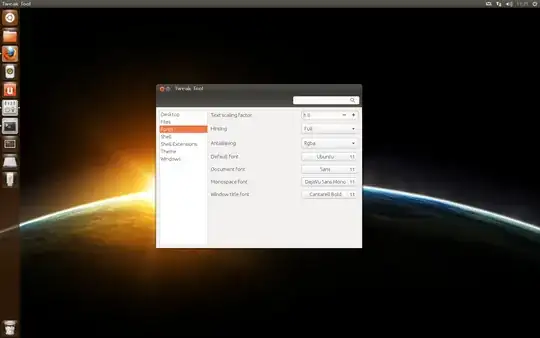
I'm feeling like there's something wrong with font rendering because it looked a lot nicer last time I had Ubuntu running on the same PC (or even from a Live CD).
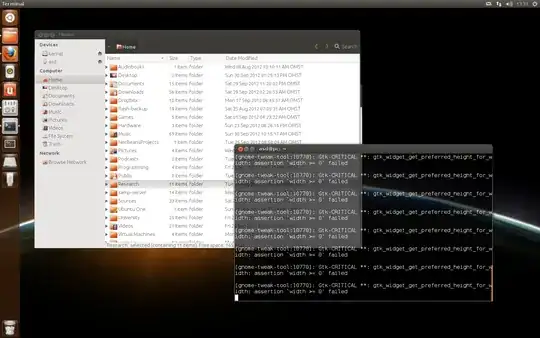
Is it something wrong with my configuration?
Here's the default font settings for 12.10:
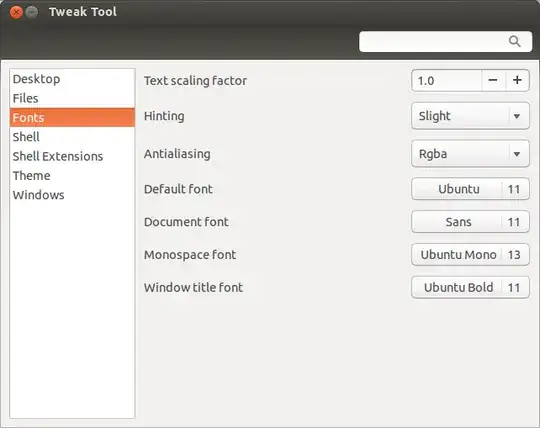
I assume you are saying ugly to the thin look of the fonts. Though You have anti-aliasing turned on, the hinting is important there. With full hinting, you will get much thinner fonts which do not look great on Unity (It looks good in KDE though).
You should change the hinting to Slight, instead of full. It will give you smoother fonts which is enabled by default in Ubuntu.